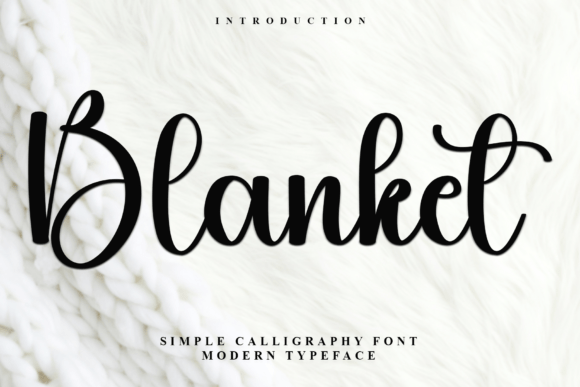
The Blanket Font: A Soft, Unique Touch for Your Designs
I still remember the frustration of working on a design project, hours spent searching for the perfect font, only to come up empty-handed. My client wanted something that would make their brand stand out, but not look too over-the-top. It was then that I stumbled upon the Blanket font, and it instantly became my go-to. Its soft, unique touch and distinctive strokes gave it a special character that I just couldn’t resist.
An Honest Review of Blanket Font
What I Love About Blanket Font
- ✨ Unique and Eye-Catching Design: The Blanket font has a distinctive style that sets it apart from other fonts. Its soft, rounded edges and varying stroke widths give it a natural, handcrafted feel.
- ✅ Versatile and Meaningful: This font is perfect for a wide range of design projects, from crafts and creative works to branding and advertising. Its unique character makes it memorable and engaging.
While the Blanket font is an excellent choice for many design projects, there are a few things to keep in mind:
- ⚠️ Limited Use in Small Text Sizes: Due to its unique design, the Blanket font may not be suitable for small text sizes, as it can become difficult to read.
- 🤔 Some Characters May Require Adjustment: Certain characters, such as the uppercase and lowercase letters, may require adjustment to ensure proper spacing and alignment.
The Story Behind Blanket Font
The Blanket font was designed with the intention of creating a unique and eye-catching font that would stand out in a crowded design landscape. The designer wanted to create a font that would evoke a sense of warmth and comfort, while also being versatile and memorable.
Q: What is the Blanket font?
A: The Blanket font is a beautiful and eye-catching font designed with a soft, unique touch.
Q: Is the Blanket font suitable for small text sizes?
A: Due to its unique design, the Blanket font may not be suitable for small text sizes, as it can become difficult to read.